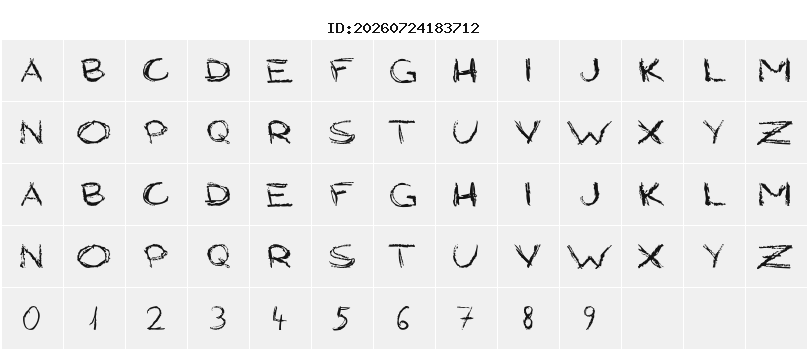
Grungy Style Preview
• Font Name: Grungy Style
• Designer: Alex Petrovici
About Grungy Style.ttf
Grungy Style.ttf is a modern, elegant sans-serif font designed for ultimate readability and visual harmony. Perfect for branding, headlines, web design, and print materials.